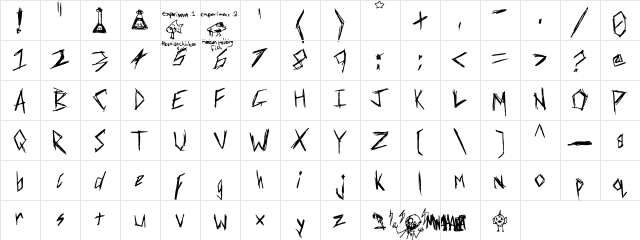
Of Mr Valent Regular
Design Context for Of Mr Valent Typeface
Of Mr Valent is a composed and adaptable typeface that performs quietly and consistently across a wide range of design contexts.